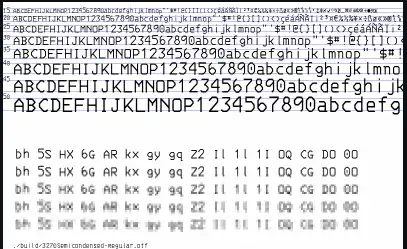
3270font
This font is derived from the x3270 font, which, in turn, was translated from the one in Georgia Tech's 3270tool, which was itself hand-copied from a 3270 series terminal. I built it because I felt terminals deserve to be pretty. The .sfd font file contains a x3270 bitmap font that was used for guidance. The "source" file is edited using FontForge. You'll need it if you want to generate fonts for your platform. On most civilized operating systems, you can simply apt-get install fontforge, yum install fontforge or even port install fontforge. If you are running Windows, you'll probably need something like WSL or Cygwin, but, in the end, the font works correctly (with some very minor hinting issues). The easiest way to generate the font files your computer can use is to run make all (if you are running Ubuntu or Debian, make install will install them too). Using make help will offer a handy list of options.
• A 3270 font in a modern format
• This font is derived from the x3270 font
• The .sfd font file contains a x3270 bitmap font that was used for guidance
• The "source" file is edited using FontForge